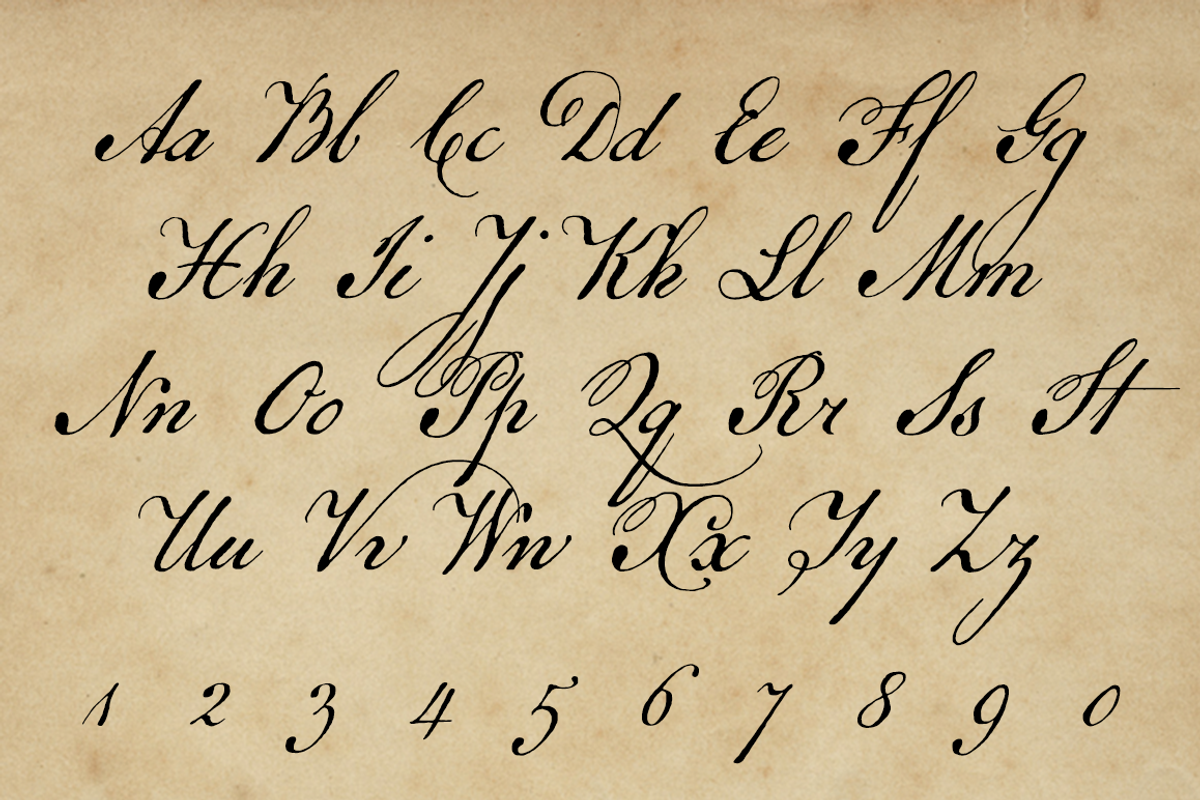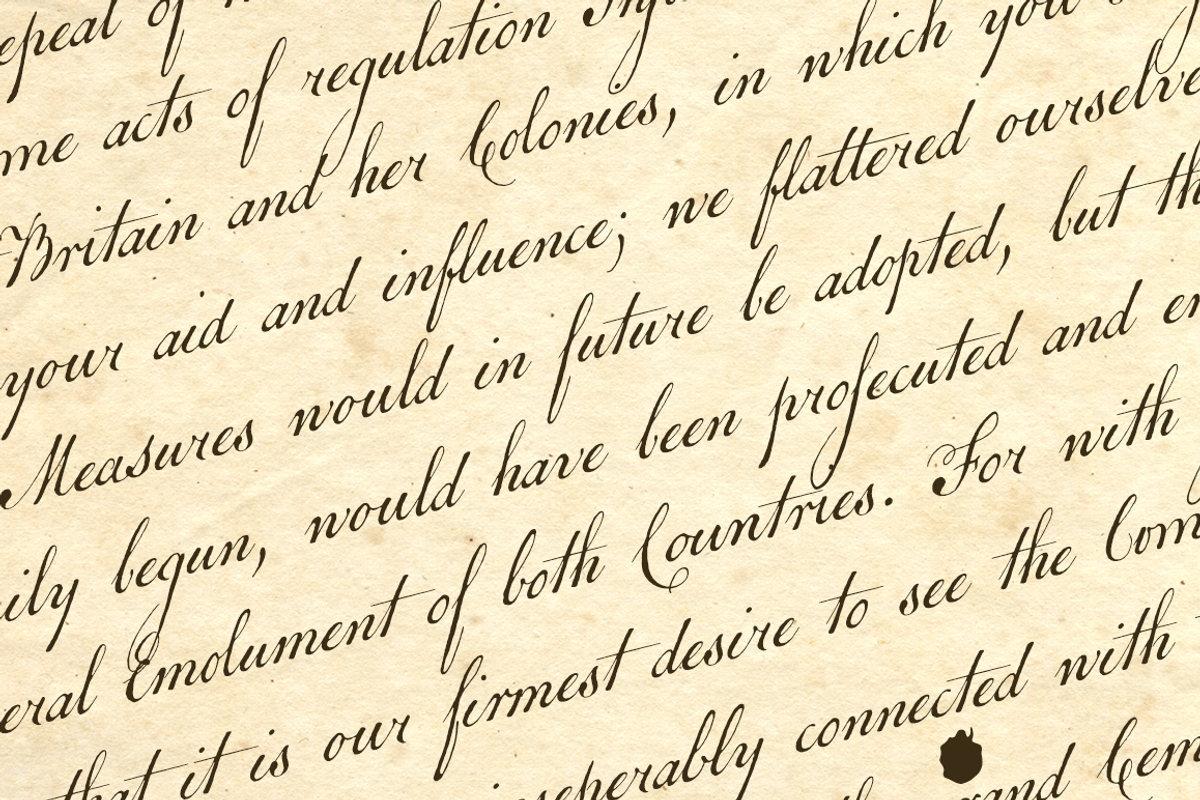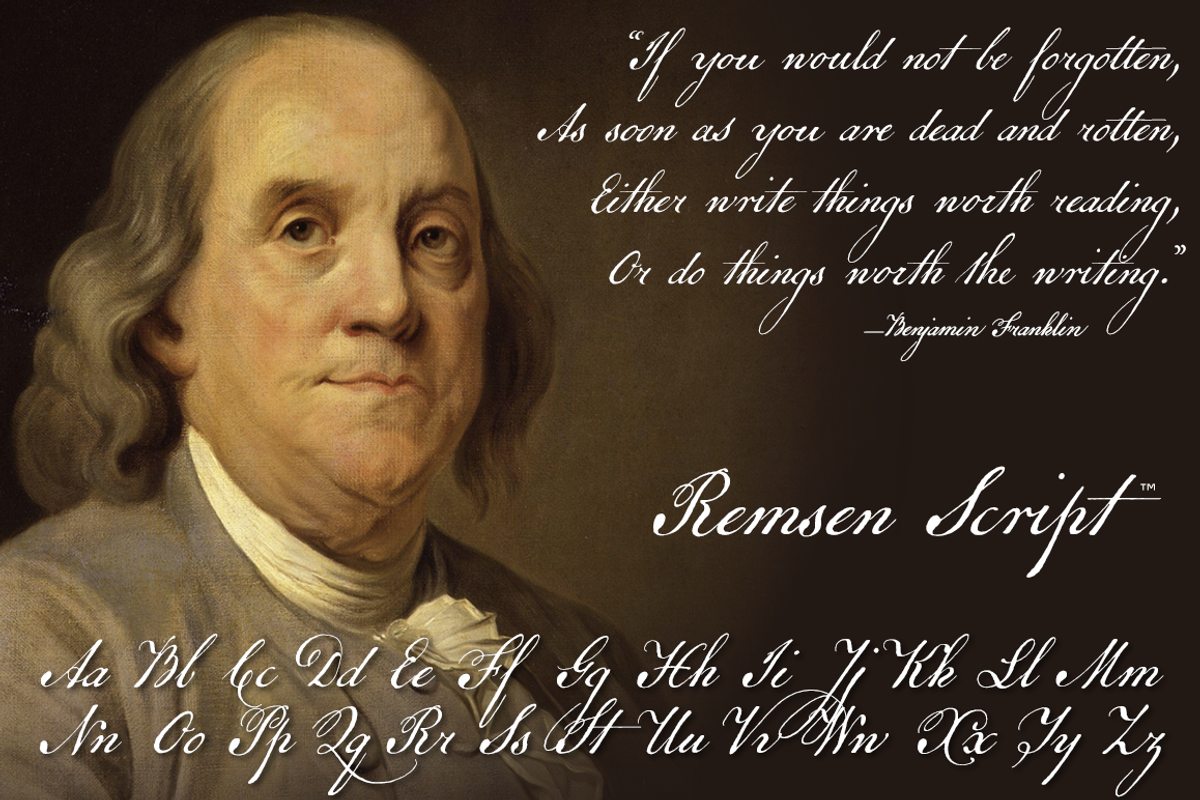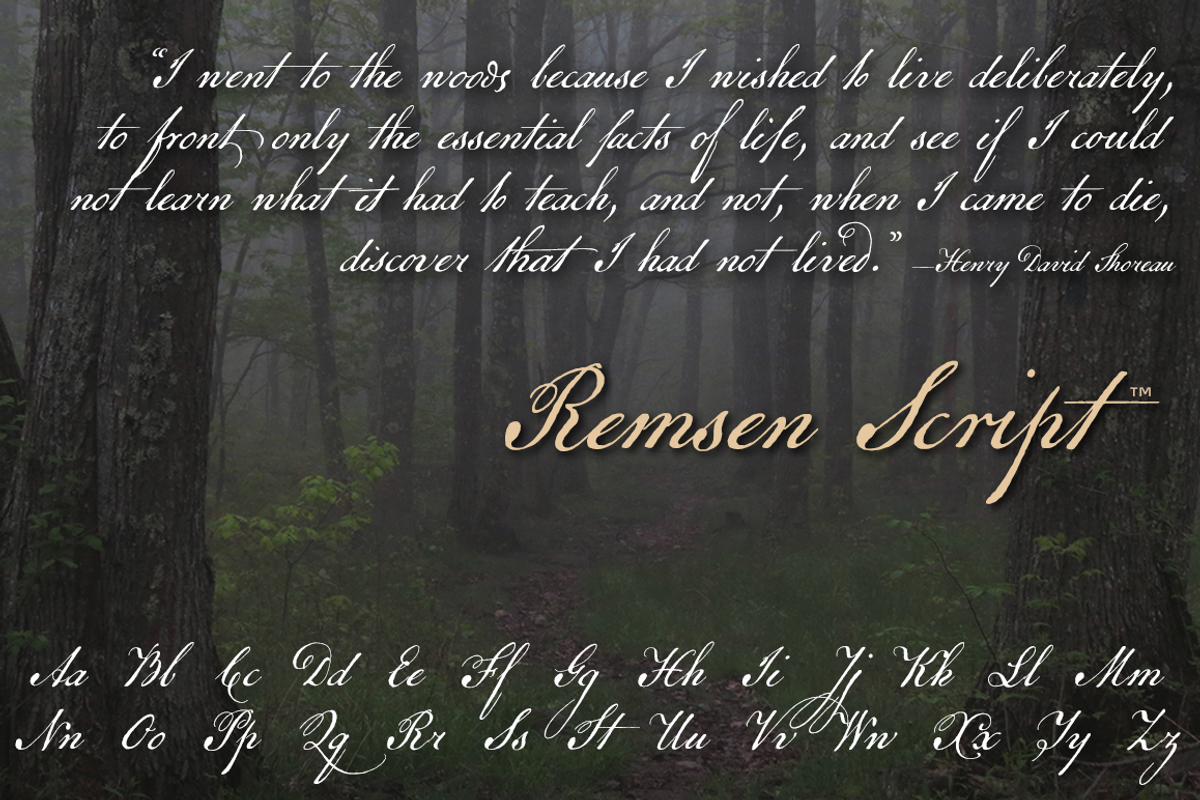
Remsen Script, a fine old pen font
- Comes with more OpenType features than chests of tea in Boston Harbor, including alternate uppercase styles, scores of authentic ligatures,